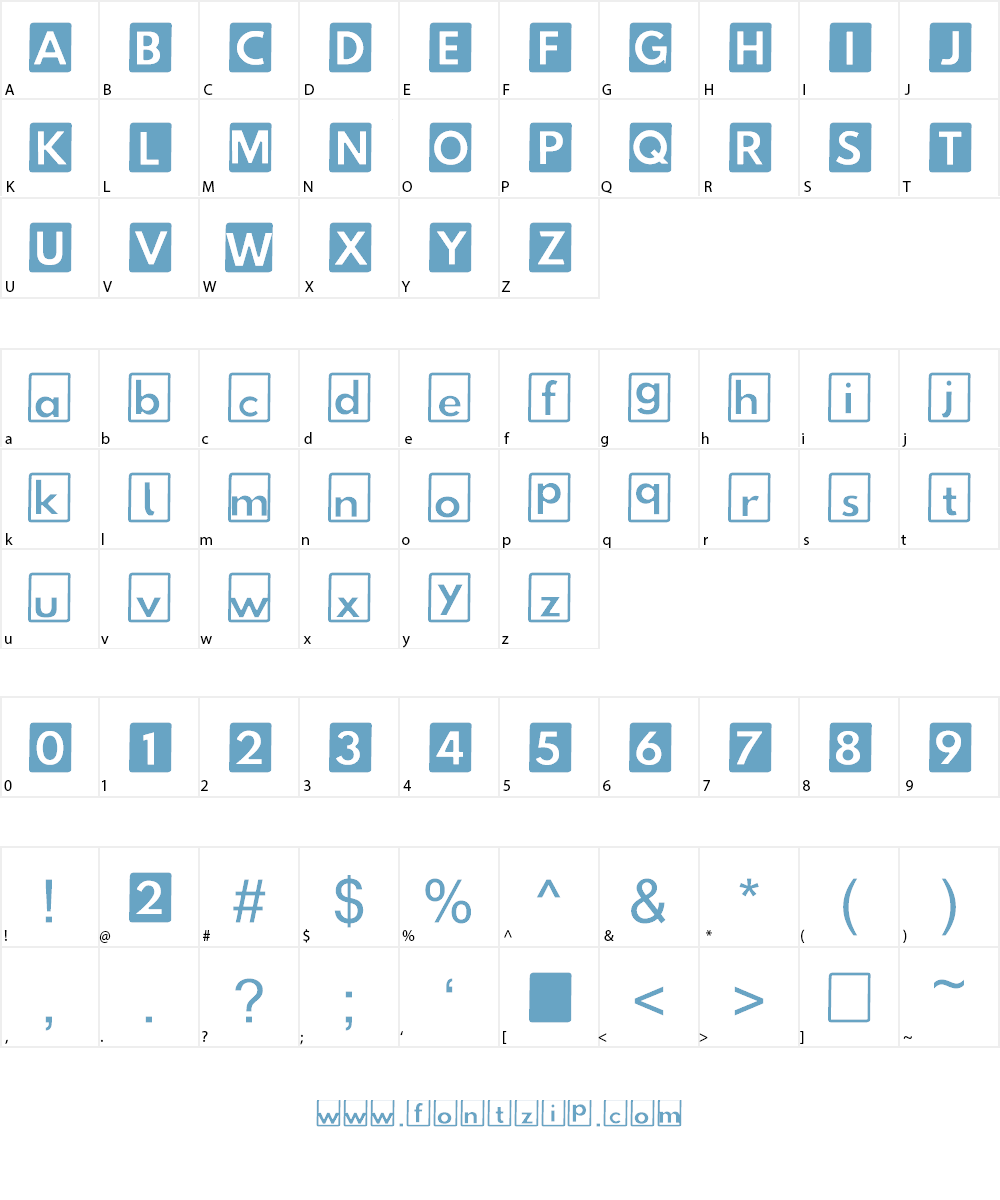
Hussar wa Yusha de Aru(originally called YukiYunafont, but was never released in the public due to corruption, leading to unfinished font format.) is based on Hussar Ekologiczny and around the anime series' logotype lettering, hence the name.